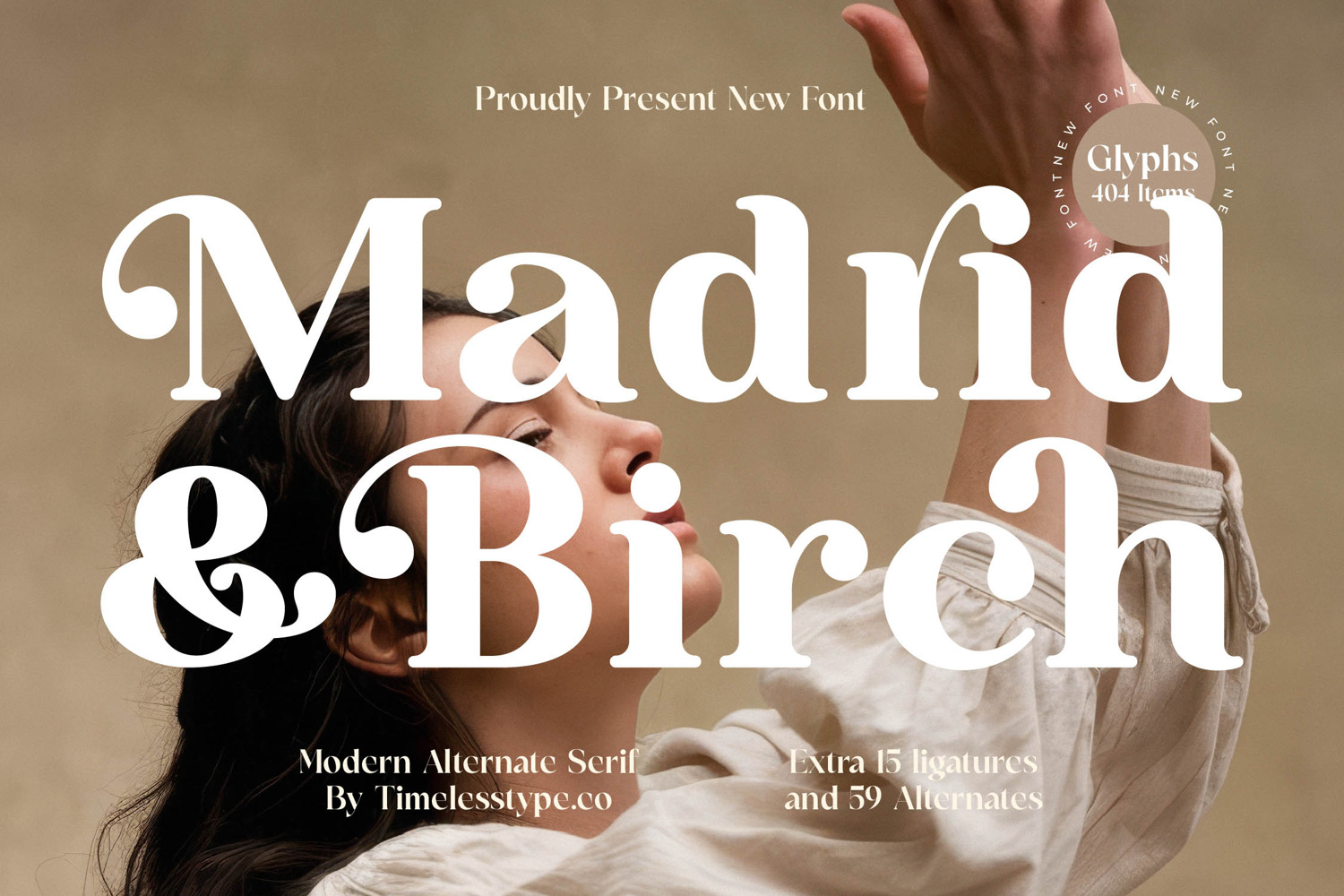
Madrid & Birch - Modern Alternate Serif
Elevate your design projects with Font Madrid & Birch - Modern Alternate Serif Display, a typeface marrying classic elegance with contemporary flair. This high-contrast serif offers a sophisticated, commanding presence, ideal for designs demanding warmth and strong visual impact. Its meticulously crafted curves and confident serifs exude refined luxury, instantly capturing attention.
Unlock unparalleled creative versatility with the extensive feature set of Font Madrid & Birch - Modern Alternate Serif Display. Boasting a rich array of alternate glyphs and impressive ligatures, this font empowers designers to craft truly unique, memorable typography. From striking headlines to distinctive subheadings, its flexibility ensures maximum stylistic impact, setting your brand apart.
Achieve global design resonance effortlessly with Font Madrid & Birch - Modern Alternate Serif Display. With its extensive multilingual support, Font Madrid & Birch - Modern Alternate Serif Display adapts seamlessly across global markets, making it incredibly versatile for international projects. This capability ensures your brand's voice maintains intended sophistication and clarity, fostering an expansive reach.
An indispensable asset where distinction is paramount, Font Madrid & Birch - Modern Alternate Serif Display is perfectly suited for luxury branding, high-end editorial design, and premium product packaging. Envision its beauty gracing fashion magazines, exclusive invitations, or sophisticated website headers. Choose this font to make an unforgettable impression and infuse your designs with timeless, modern elegance.